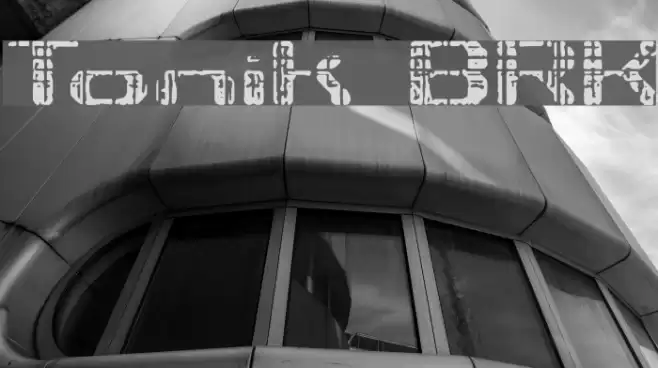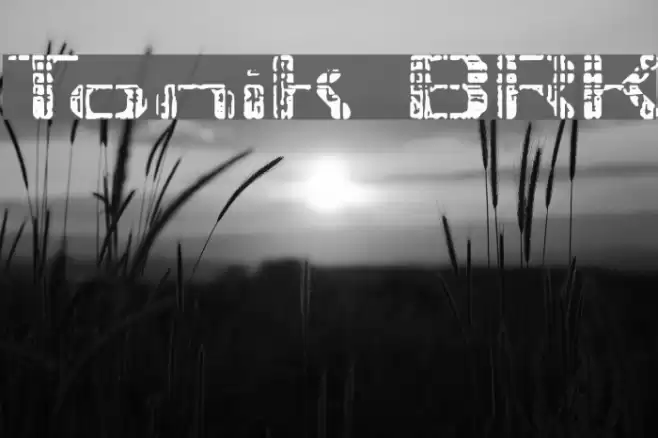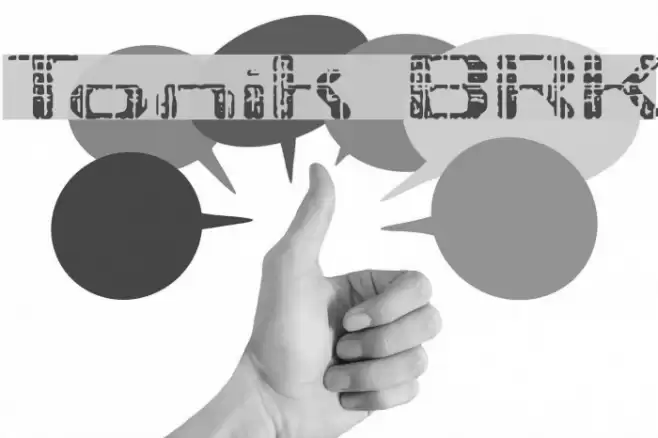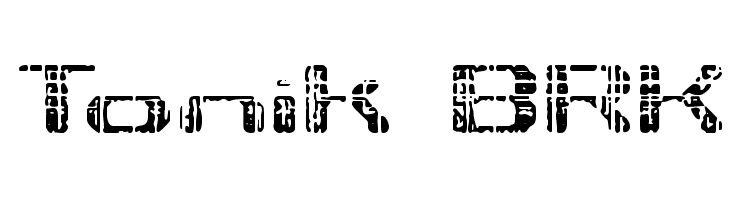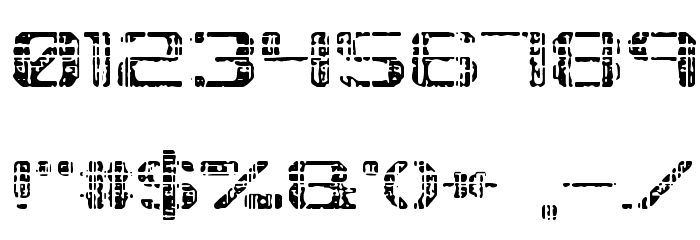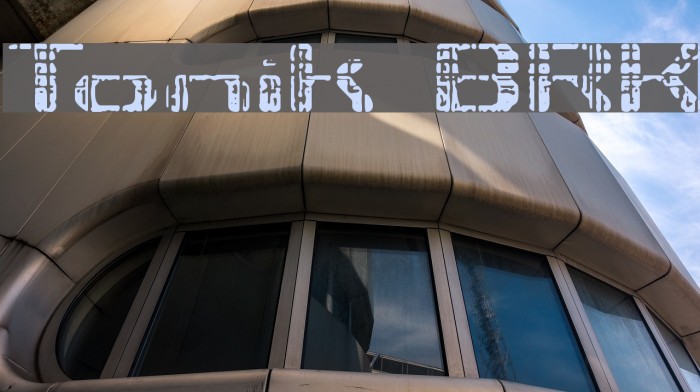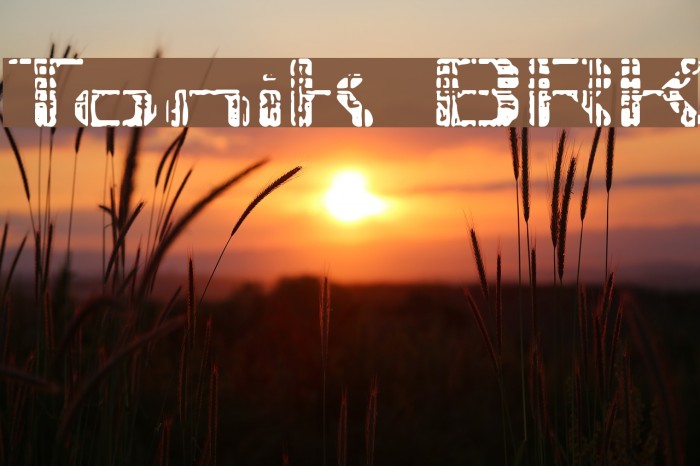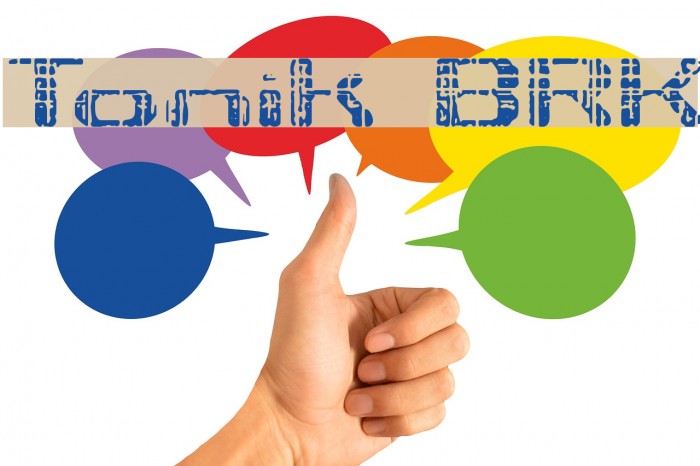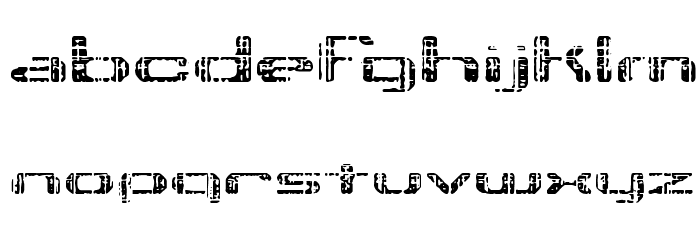
Tonik BRK Font
Tonik BRK Description
This font features a unique, distressed style with a digital, glitch-like appearance. The characters are constructed with a combination of solid and broken lines, giving it a rugged and edgy look. The uppercase and lowercase letters maintain a consistent height, while the numerals and special characters follow the same design pattern. The font's design is reminiscent of a futuristic or technological theme, with a touch of grunge. It stands out with its bold presence and intricate detailing, making it suitable for eye-catching designs.
A distressed, glitch-style font with a futuristic and edgy appearance from Pixel fonts.
- Proposed Projects: Ideal for digital art, album covers, video game graphics, and posters requiring a bold, modern aesthetic.
- Overall Style: Modern, Futuristic, Grunge